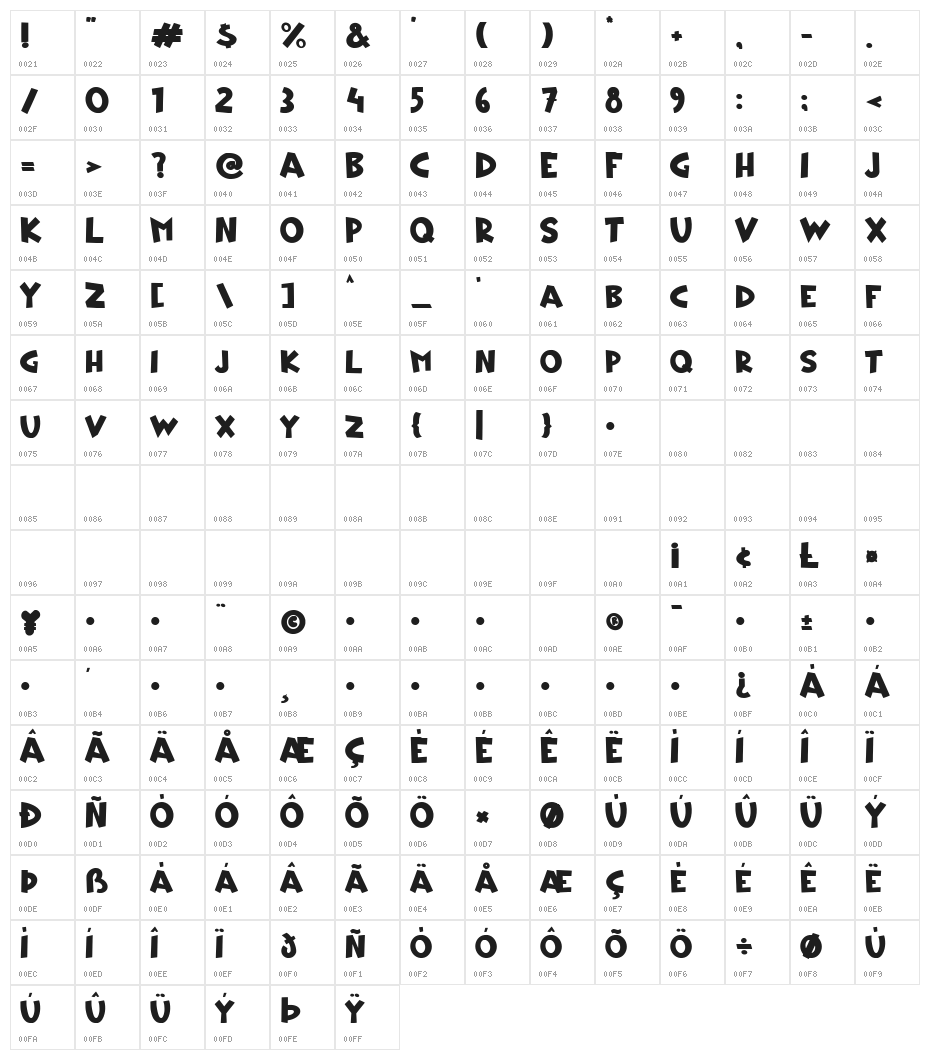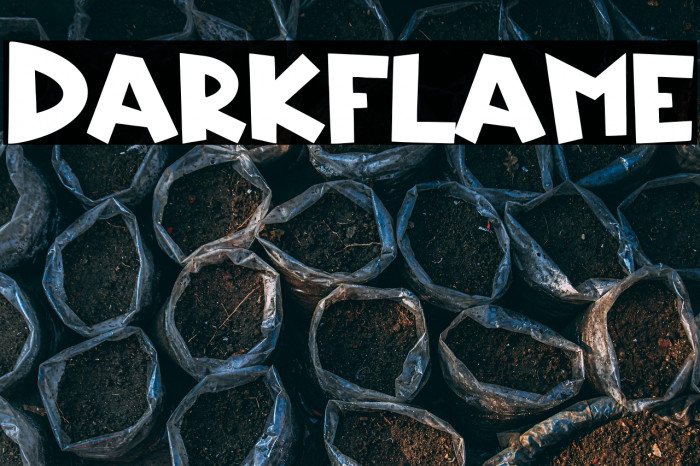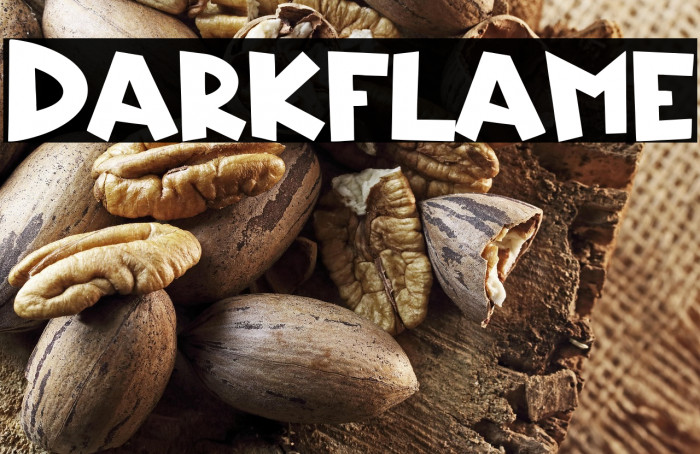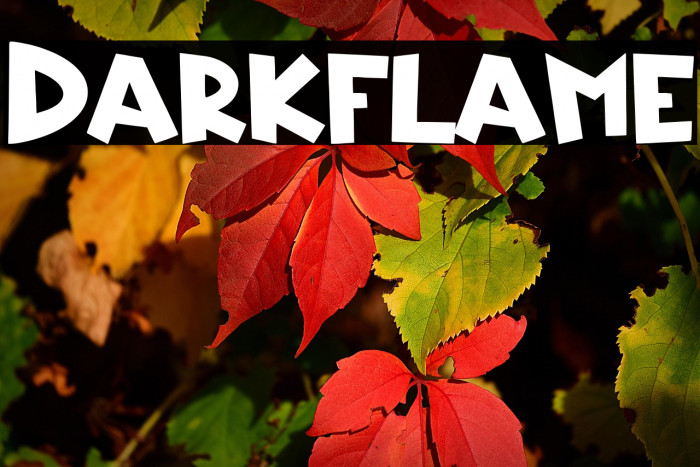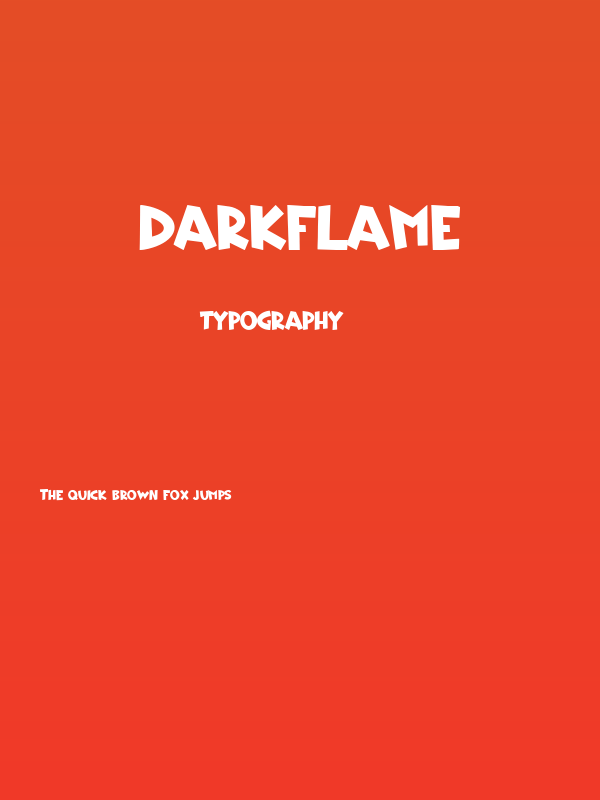
Darkflame Font
Darkflame Description
This font features bold, playful characters with a distinctively quirky and energetic style. The letters are slightly irregular, giving them a hand-drawn appearance that adds a sense of fun and creativity. The uppercase and lowercase letters maintain a consistent weight, contributing to a cohesive look. The numbers and special characters follow the same playful design, making them suitable for a variety of creative applications. The font's boldness ensures high visibility and impact, making it ideal for attention-grabbing designs.
| Overall Style | Playful, Creative |
| Use Case | Headlines, Posters, Branding |
| Proposed Projects | Ideal for children's books, comic strips, playful branding, and eye-catching posters. |